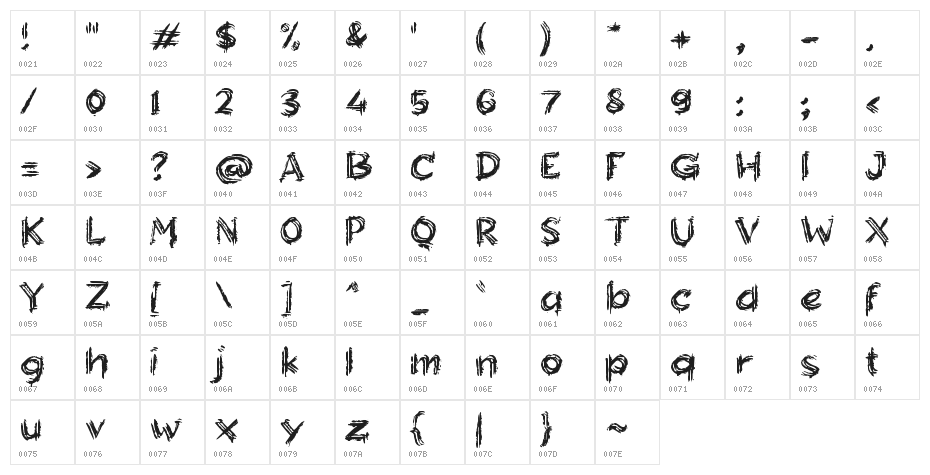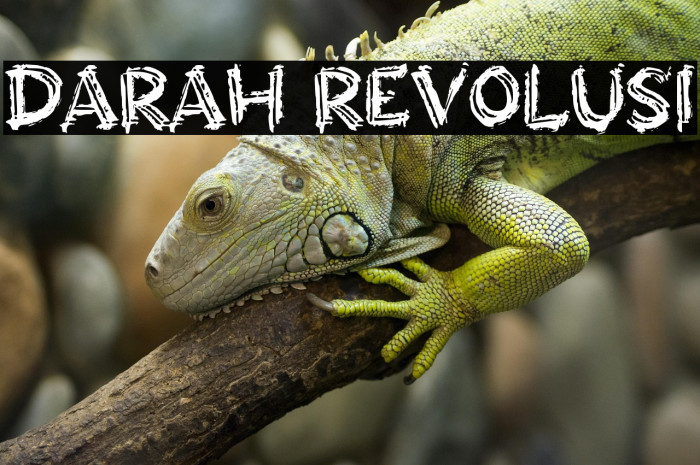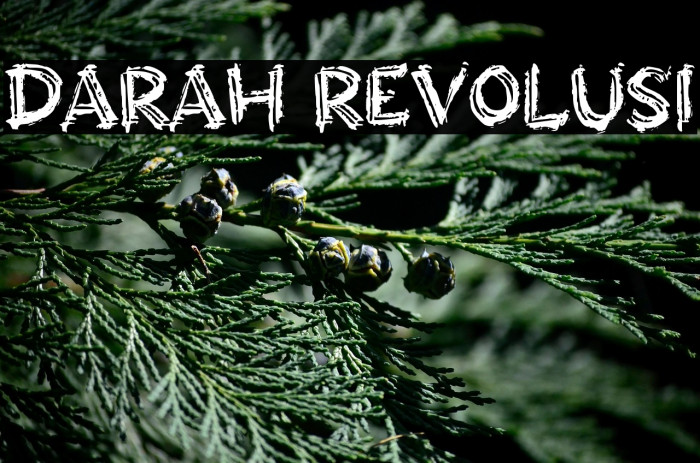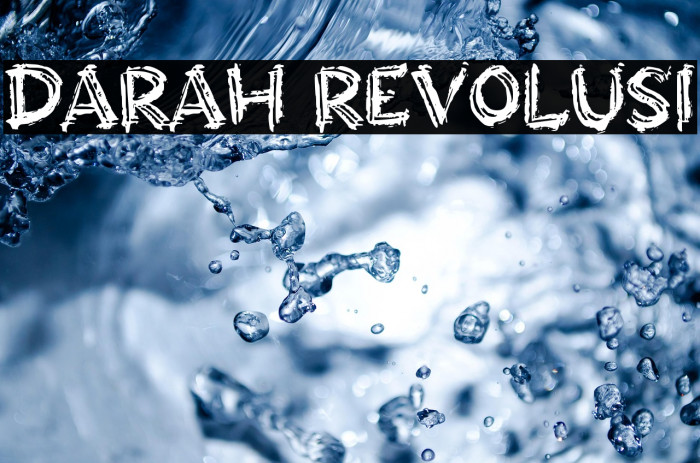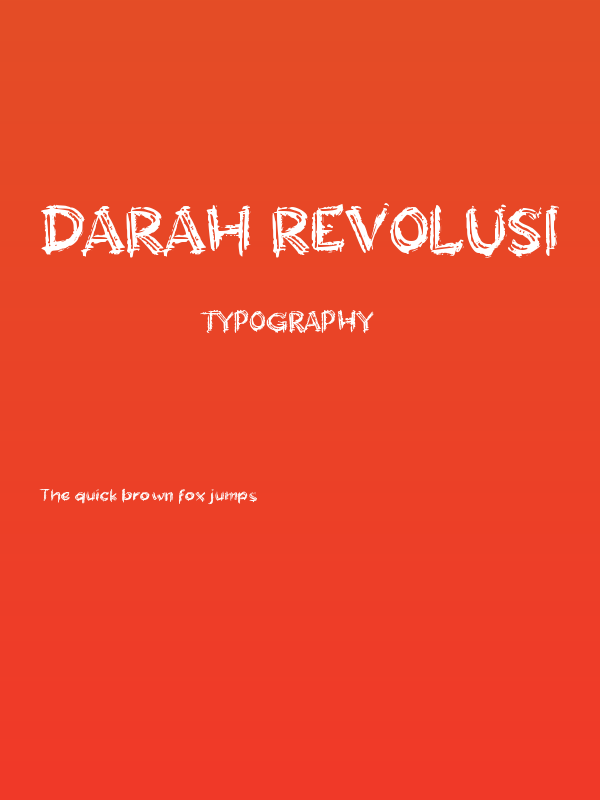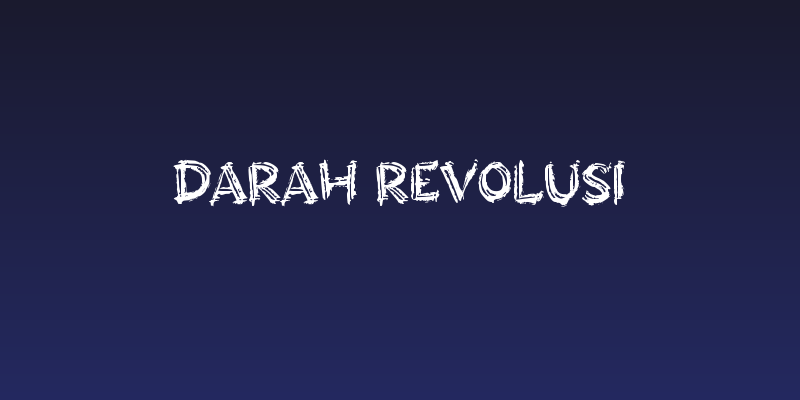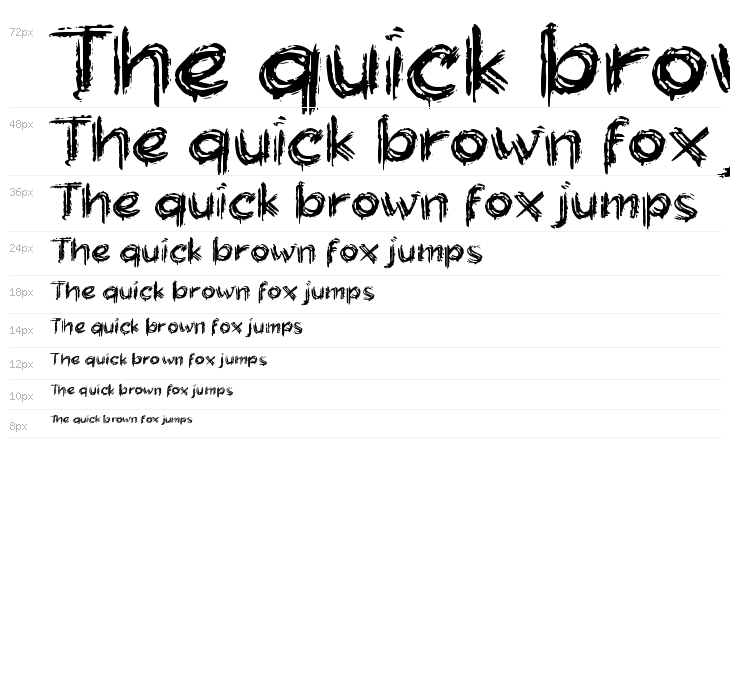
DARAH REVOLUSI Font
DARAH REVOLUSI Description
This font features a bold and expressive style with a rough, textured appearance. The characters are designed to look like they have been painted with a brush, giving them an artistic and rebellious feel. The strokes are uneven and jagged, adding to the dynamic and energetic look. This font is highly decorative, making it ideal for projects that require a strong visual impact. The uppercase and lowercase letters maintain a consistent style, while the numbers and special characters complement the overall design. The font's unique character makes it suitable for creative and unconventional applications.